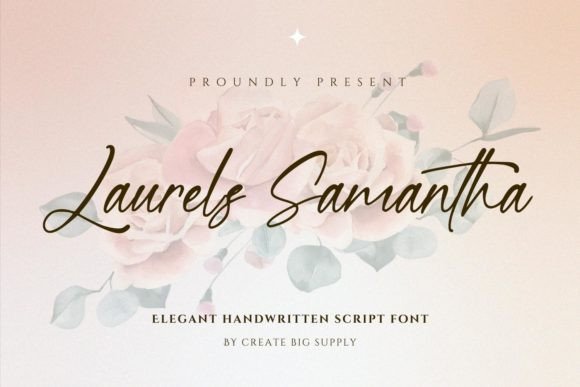
In a world where uniformity reigns supreme, where fonts blend together like raindrops in a storm, Laurel's Samantha emerges as a radiant beacon of individuality. This extraordinary script handwriting signature font, crafted with meticulous attention to detail by the talented artists at Create Big Supply, transcends the boundaries of the ordinary, inviting you to embrace the extraordinary.
With its captivating curves and elegant flourishes, Laurel's Samantha dances across the page like a ballerina, captivating your audience with its grace and poise. Each letter is a work of art, meticulously crafted to convey a sense of personality and charm. Whether you're designing a wedding invitation, a fashion catalog, or a heartfelt letter to a loved one, Laurel's Samantha adds a touch of sophistication and elegance that is sure to leave a lasting impression.
But Laurel's Samantha is more than just a pretty face. This versatile font is a creative powerhouse, capable of transforming your design projects into masterpieces. Its full character set, encompassing uppercase and lowercase letters, numbers, punctuations, ligatures, and multilingual support, opens up a world of possibilities. Unleash your imagination and explore endless combinations, creating designs that are as unique and captivating as your own personality.
And with its PUA encoding, accessing the stunning glyphs and ligatures that make Laurel's Samantha truly shine is a breeze. Simply select the glyphs you desire, and they will effortlessly flow into your design, adding an extra layer of depth and intrigue.
Laurel's Samantha is more than just a font; it's an experience. It's an invitation to step outside the realm of the ordinary and embrace the extraordinary. Its grace, charm, and versatility will elevate your designs to new heights, leaving your audience spellbound.
So why settle for the mundane when you can bask in the enchanting beauty of Laurel's Samantha? Let your creativity soar, let your designs flourish, and let Laurel's Samantha guide you on a journey of artistic discovery.